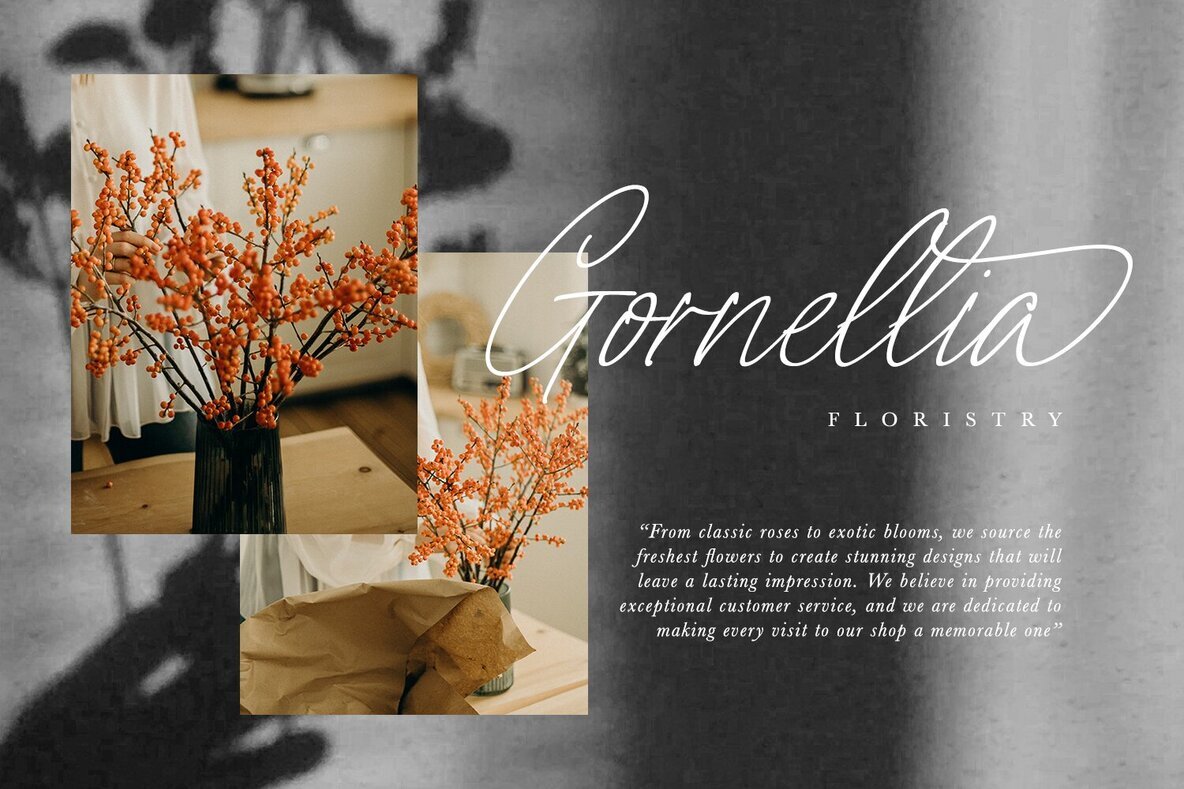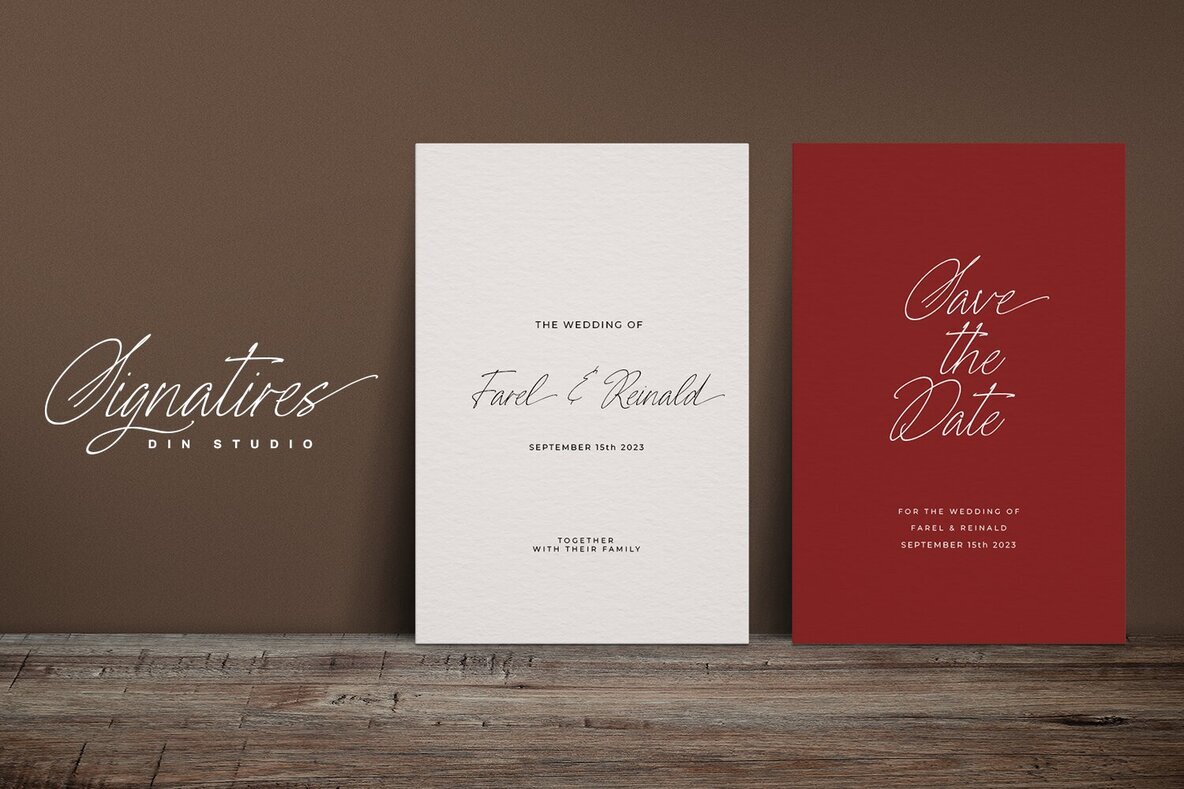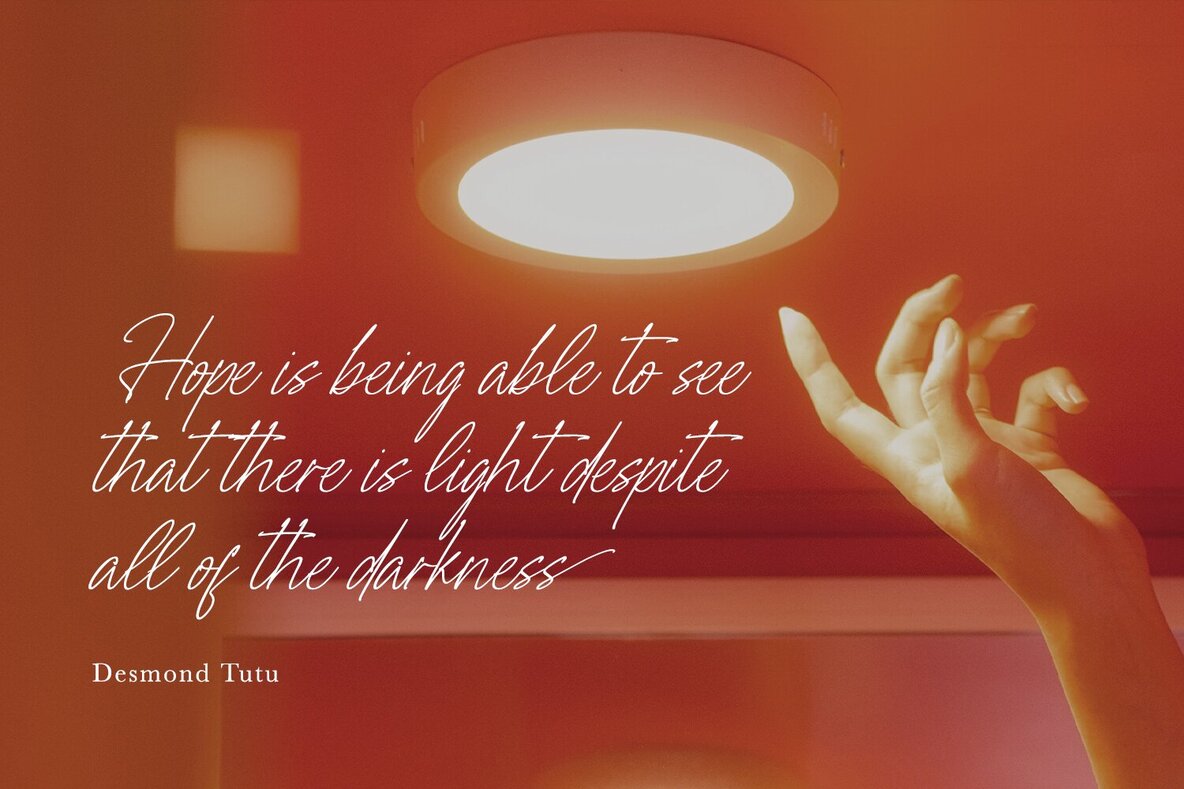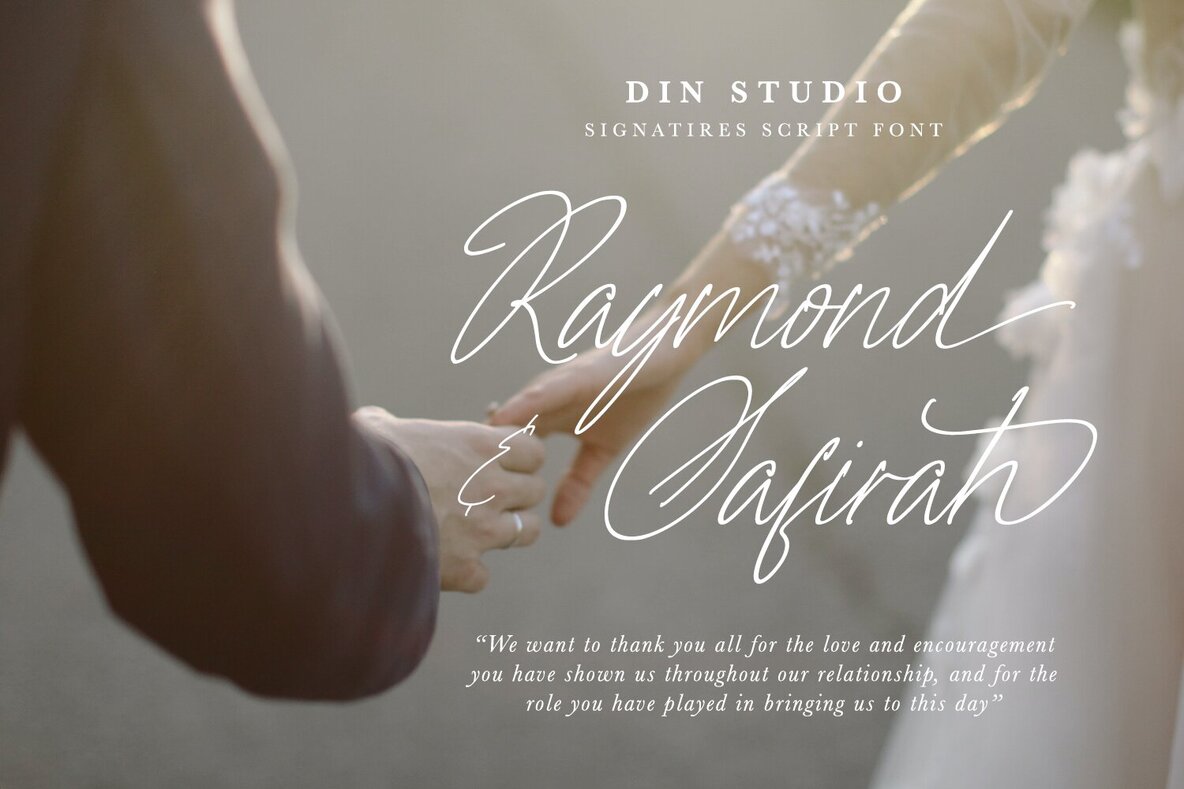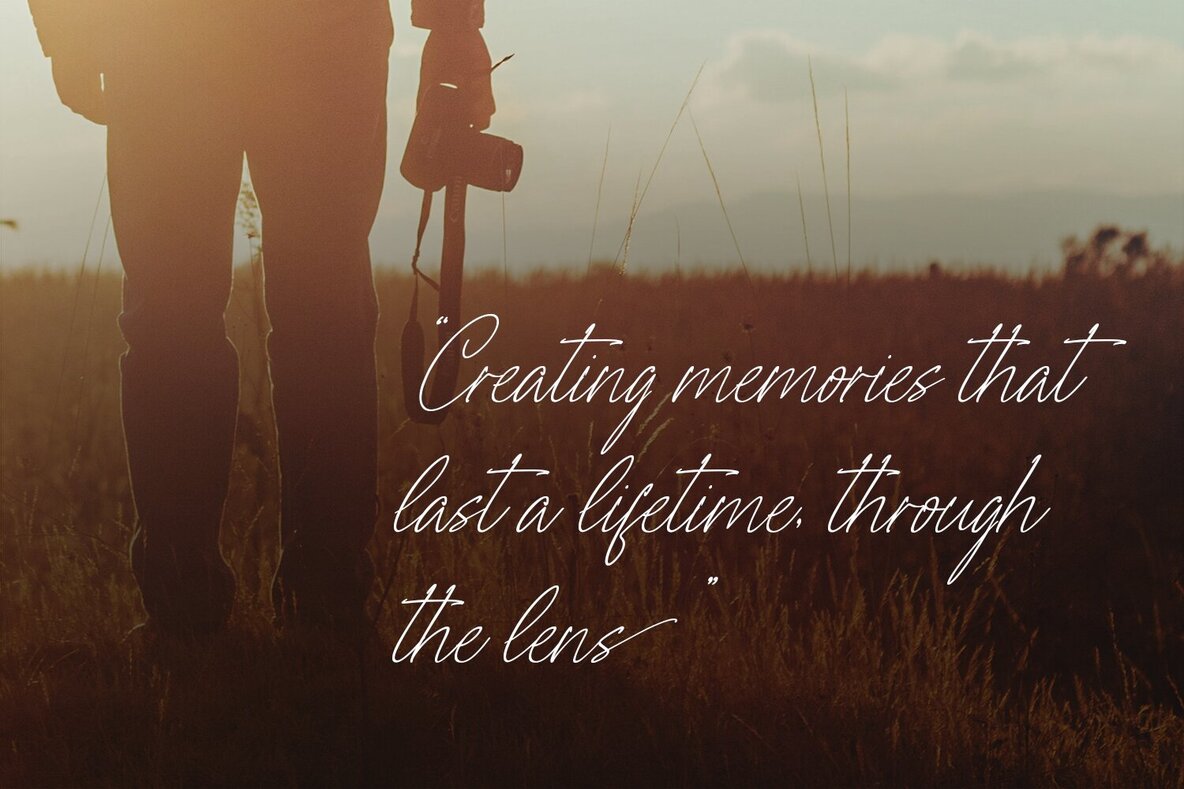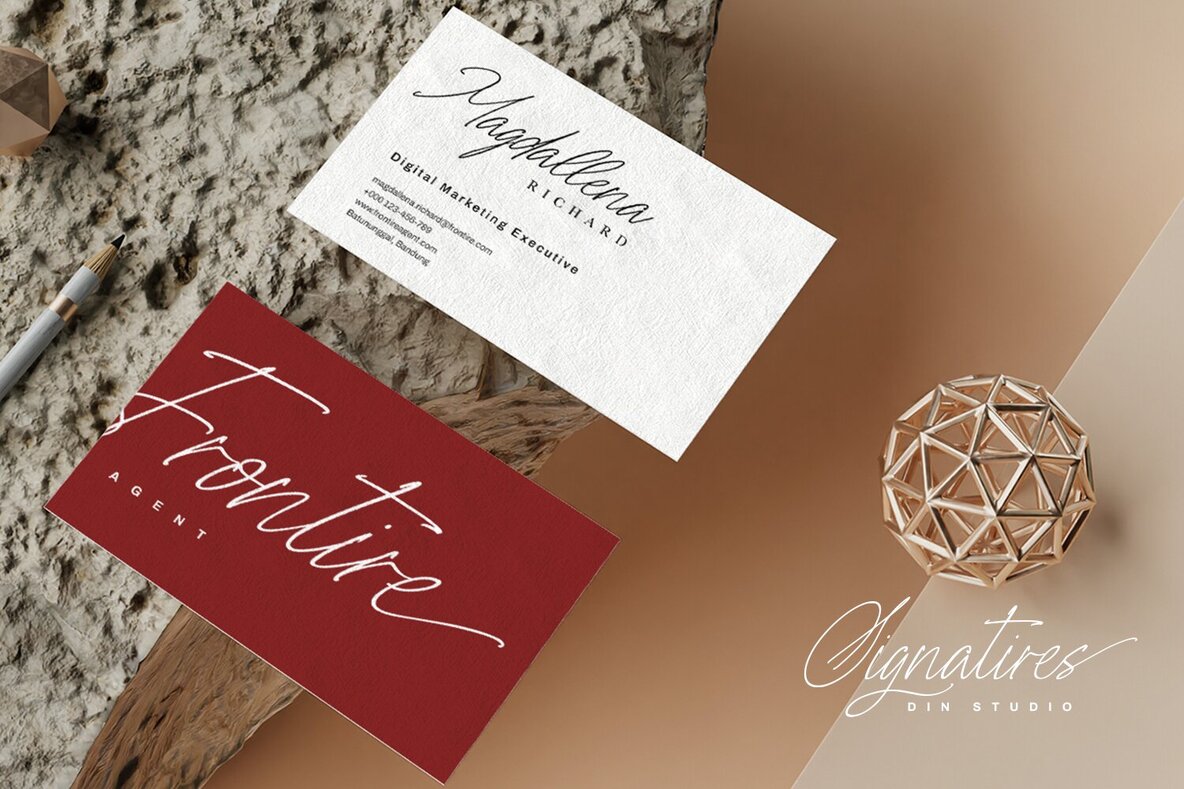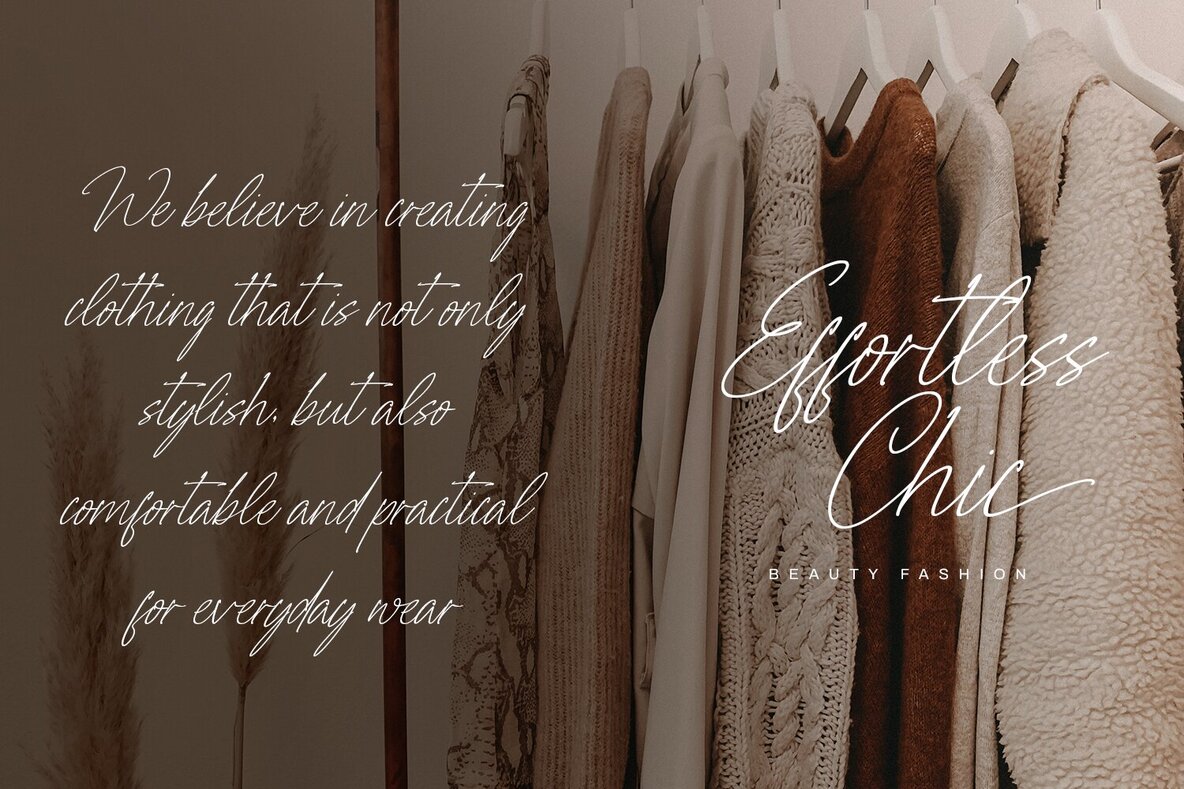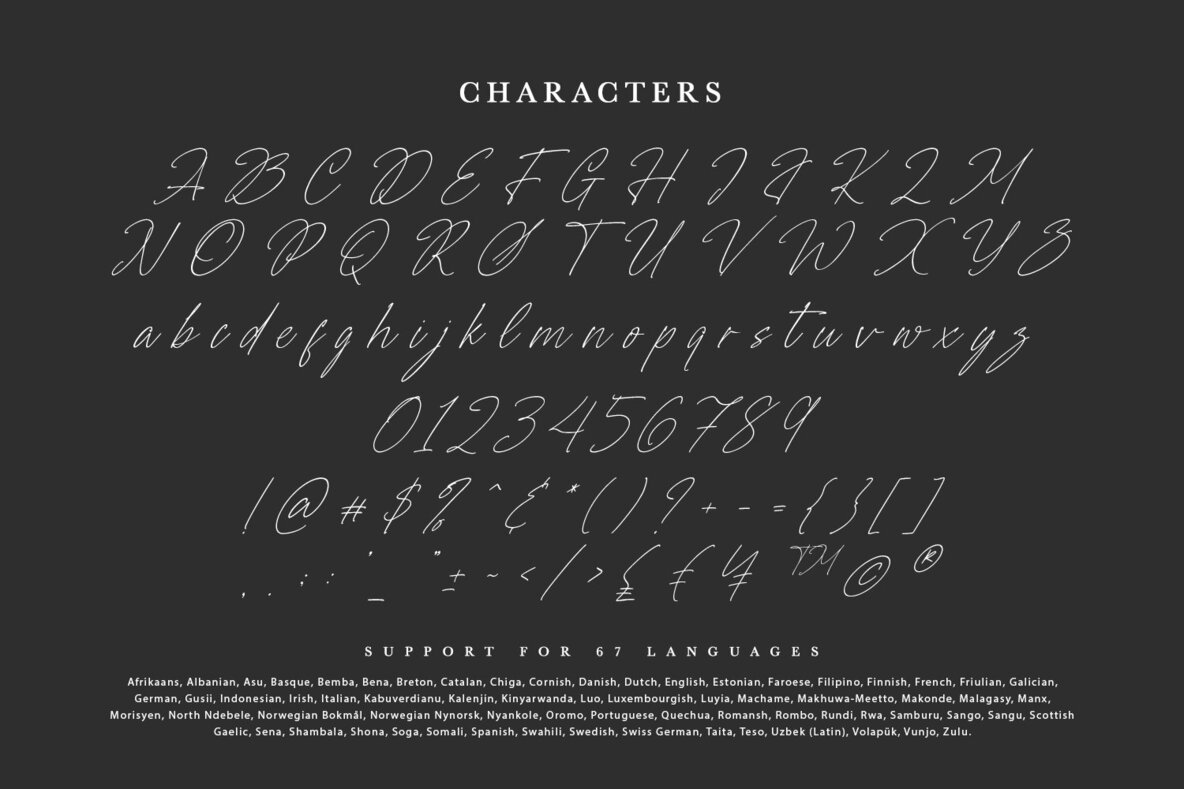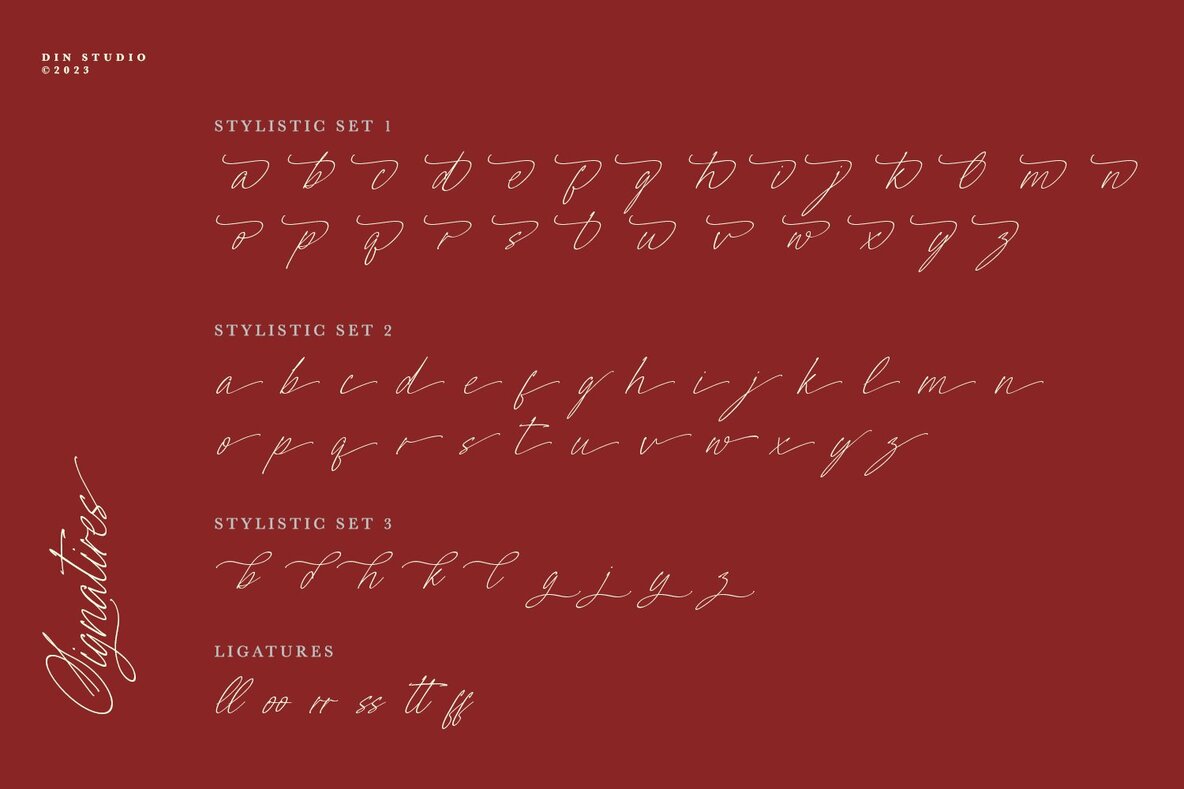
Signatires Font
Signatires Regular
Discover the perfect signature font that embodies your unique style with Signatires. This elegantly crafted typeface is designed to create visually stunning signatures. Its high contrast and flowing end strokes exude sophistication, making it easy to convey your message with clarity. The impressive legibility of Signatires ensures its versatility across various text sizes, maintaining elegance and readability in every use.
Signatires is equipped with a range of features tailored to enhance your design projects. Enjoy stylistic sets, ligatures, multilingual support, PUA encoding, along with numerals and punctuations. This versatile font is ideal for a wide array of applications, including branding, posters, banners, headings, magazine covers, quotes, invitations, greeting cards, printed products, merchandise, and social media. Explore its potential through the font preview to discover how it can elevate your creative projects.